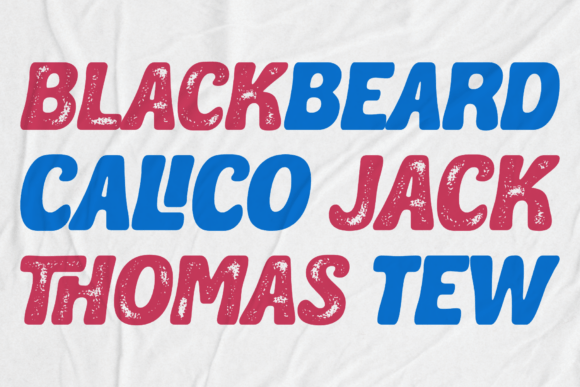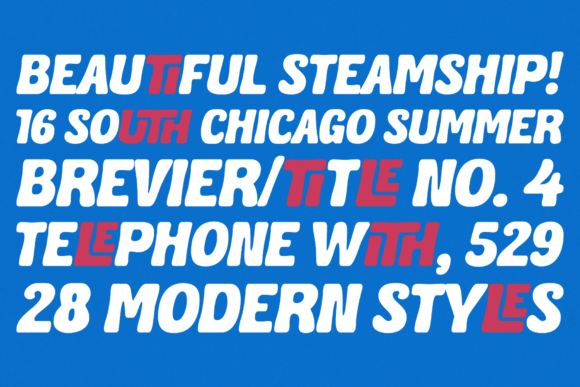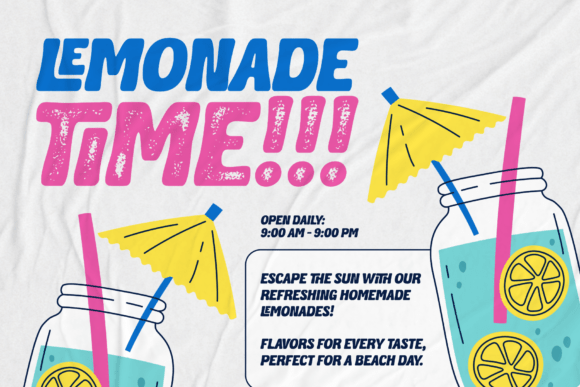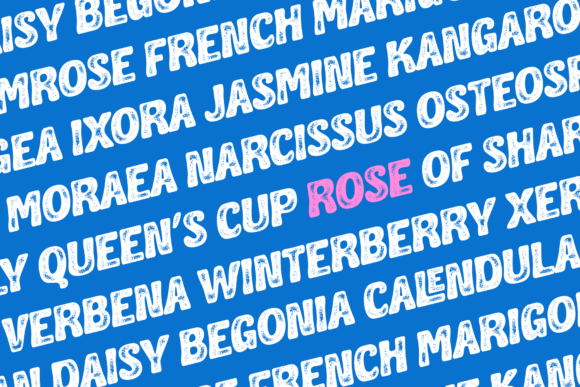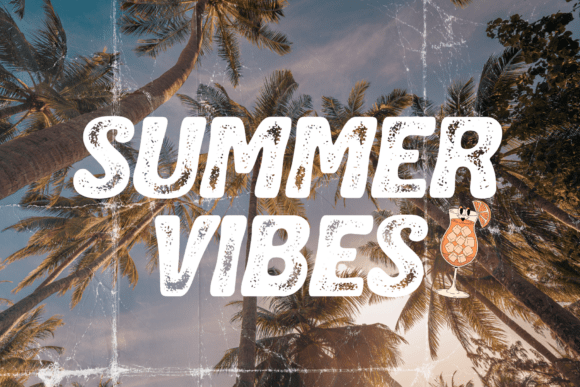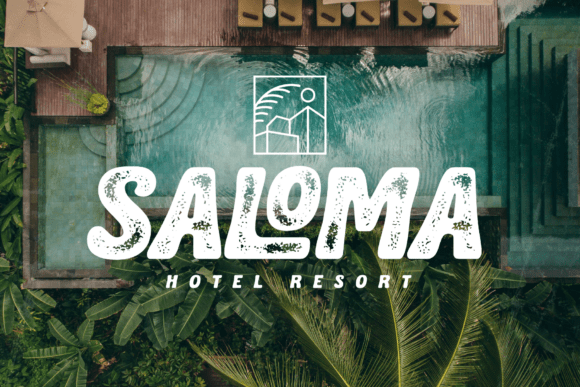
Introducing Coastline Font: Bringing the Warmth of Summer to Your Designs
Are you looking for a font that captures the essence of sunny beaches, ocean breezes, and retro summer postcards? Look no further than Coastline Font, a bold and carefree display font that’s perfect for adding a fun, adventurous vibe to any design. With its chunky curves and playful energy, Coastline Font is ideal for designers and crafters who want to infuse their projects with a bright, summer spirit.
Inspired by the Coast
Coastline Font is inspired by the carefree feeling of a summer vacation. The font’s chunky curves and playful energy evoke the feeling of a sunny day at the beach, with the sound of the waves and the smell of saltwater in the air. The font’s design is reminiscent of retro summer postcards, with a distressed, sun-faded effect that’s perfect for creating a vintage look.
Two Styles to Choose From
Coastline Font comes in two styles: Regular and Textured. The Regular style offers a clean, solid look that’s perfect for designs that require a bold, eye-catching font. The Textured style, on the other hand, features a distressed, sun-faded effect that’s perfect for creating a vintage or retro look. With these two styles, you have the freedom to choose the look that best fits your design needs.
Coastline Font is perfect for a wide range of design projects, including:
• Posters: Add a bold, eye-catching headline to your poster with Coastline Font.
• Travel branding: Use Coastline Font to create a fun, adventurous vibe for your travel brand.
• Surf-themed graphics: Coastline Font is perfect for surf-themed graphics, such as logos, t-shirts, and stickers.
• Packaging: Add a playful touch to your packaging with Coastline Font.
• Social media titles: Use Coastline Font to create eye-catching social media titles that grab attention.
• Logos: Coastline Font is perfect for creating fun, adventurous logos that stand out.
Why Choose Coastline Font?
There are many reasons why you should choose Coastline Font for your design projects. Here are just a few:
• Unique and eye-catching design: Coastline Font has a unique and eye-catching design that’s sure to grab attention.
• Versatile: Coastline Font is perfect for a wide range of design projects, from posters to packaging.
• High-quality: Coastline Font is a high-quality font that’s designed to deliver exceptional results.
Coastline Font is a bold and carefree display font that’s perfect for adding a fun, adventurous vibe to any design. With its chunky curves and playful energy, Coastline Font is ideal for designers and crafters who want to infuse their projects with a bright, summer spirit. Whether you’re creating posters, travel branding, surf-themed graphics, packaging, social media titles, logos, or anything else, Coastline Font is the perfect choice. So why wait? Download Coastline Font today and bring the warmth of summer to your designs!